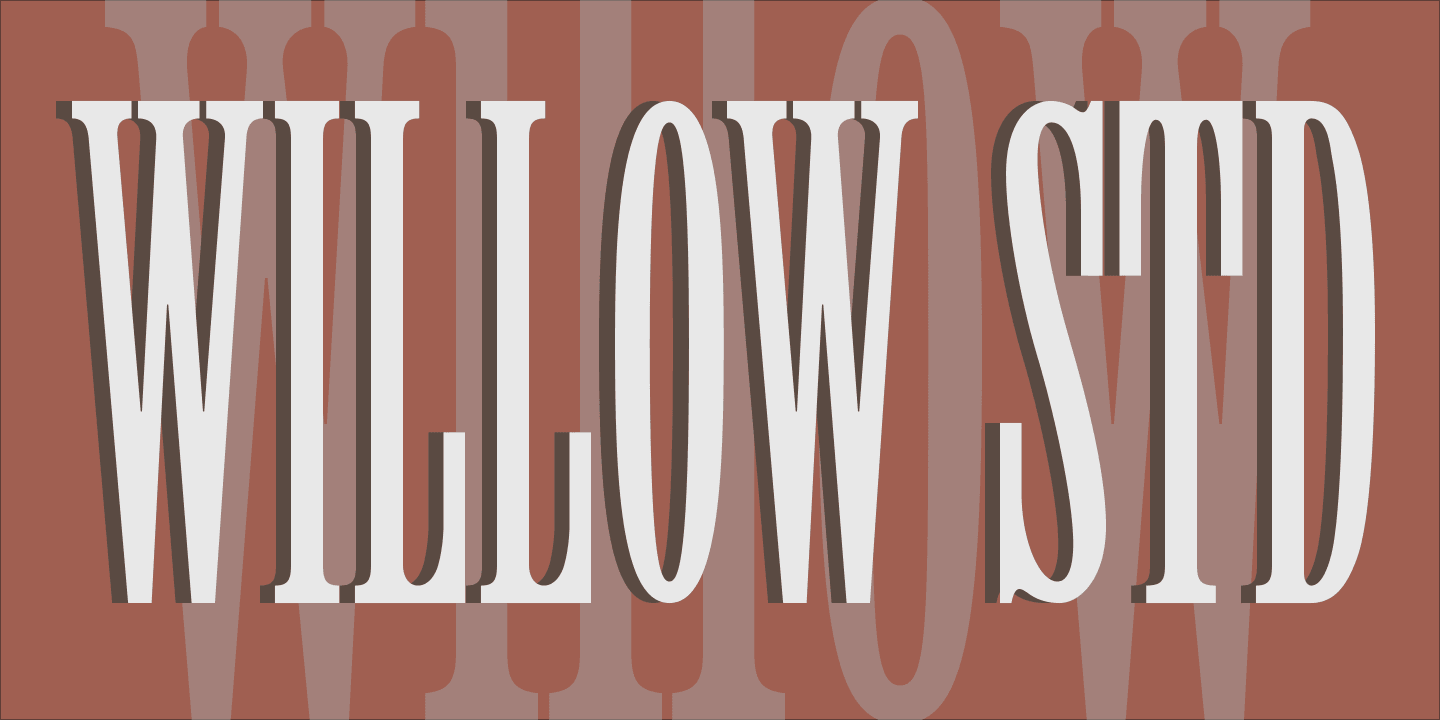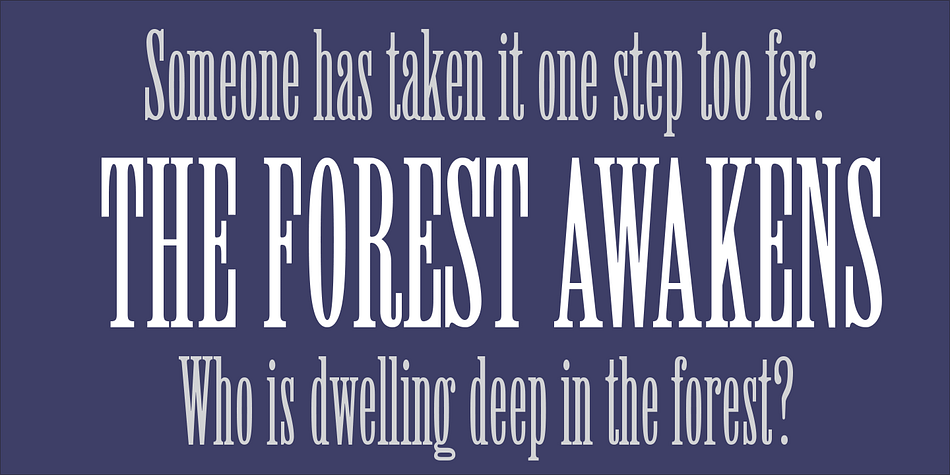
Willow® Std is a display slab font published by Adobe.
Willow is an Adobe Originals typeface designed in 1990 by Joy Redick for the Adobe Wood Type series. Willow is a condensed typeface modeled on nineteenth-century wood types known as Clarendons (wood type Clarendons do not resemble the English metal types of that name). Clarendon condensed faces were originally so well-designed that words or a line of display type have an even color that is remarkable for wood types. Taken from proofs of type in the Rob Roy Kelly Collection housed at the University of Texas at Austin, Willow can be used for display work such packaging, advertising, and posters.